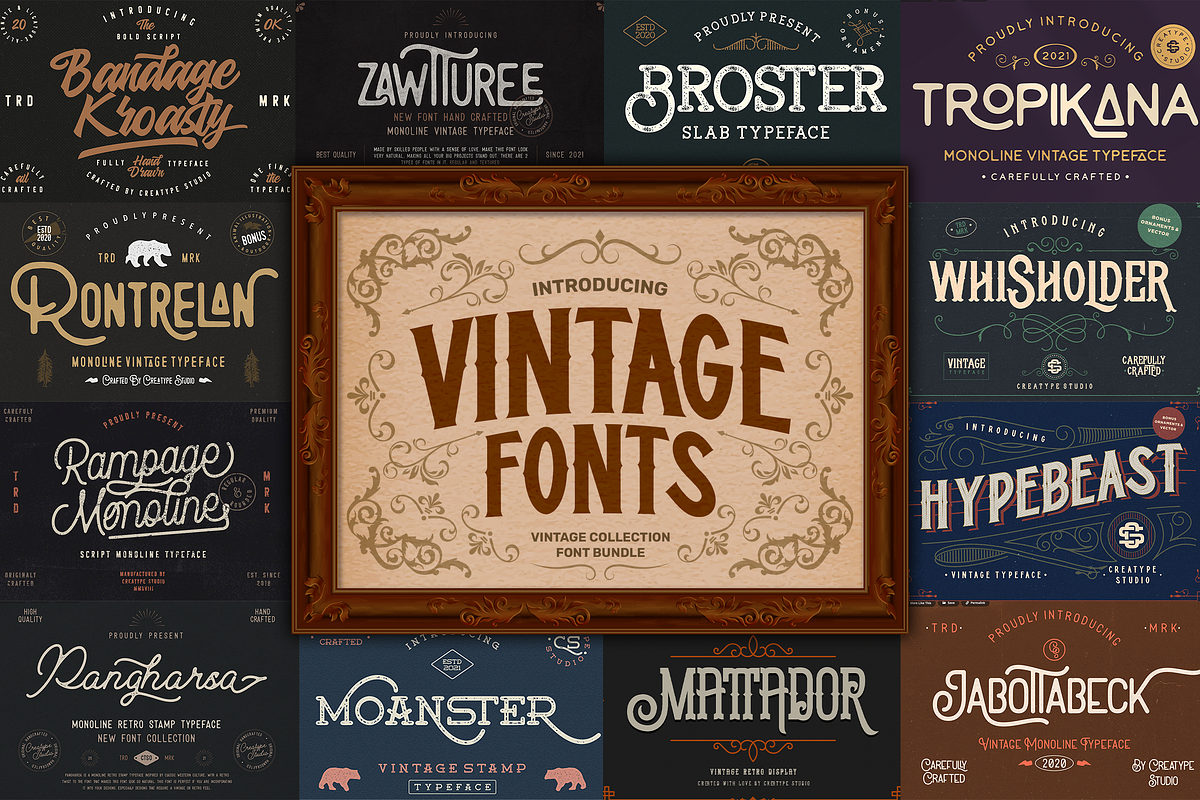
This bundle includes a wide variety of font styles—ranging from bold and decorative to elegant and refined—allowing for endless creative possibilities. With uppercase and lowercase letters, numerals, punctuation, and multilingual support, this bundle provides versatile options for any design project.
Whether you're working on a retro brand, a vintage-themed product, or simply want to infuse your designs with nostalgic appeal, Vintage Fonts Bundle has everything you need.